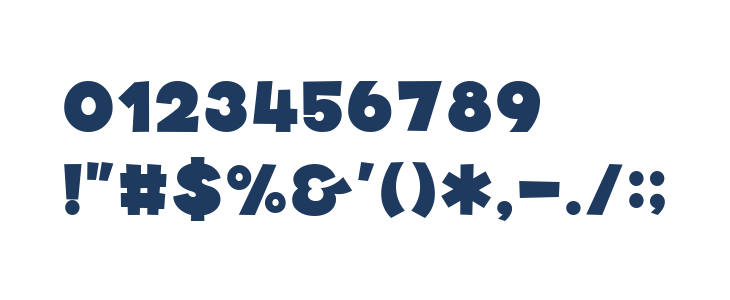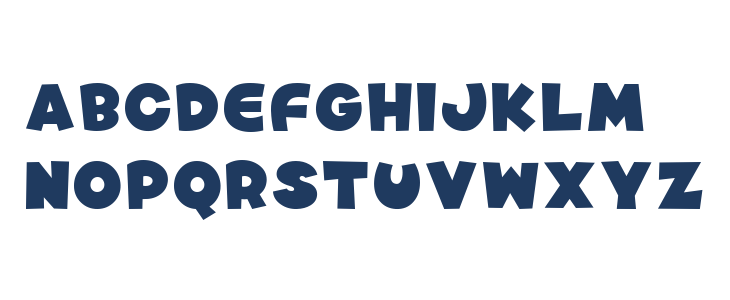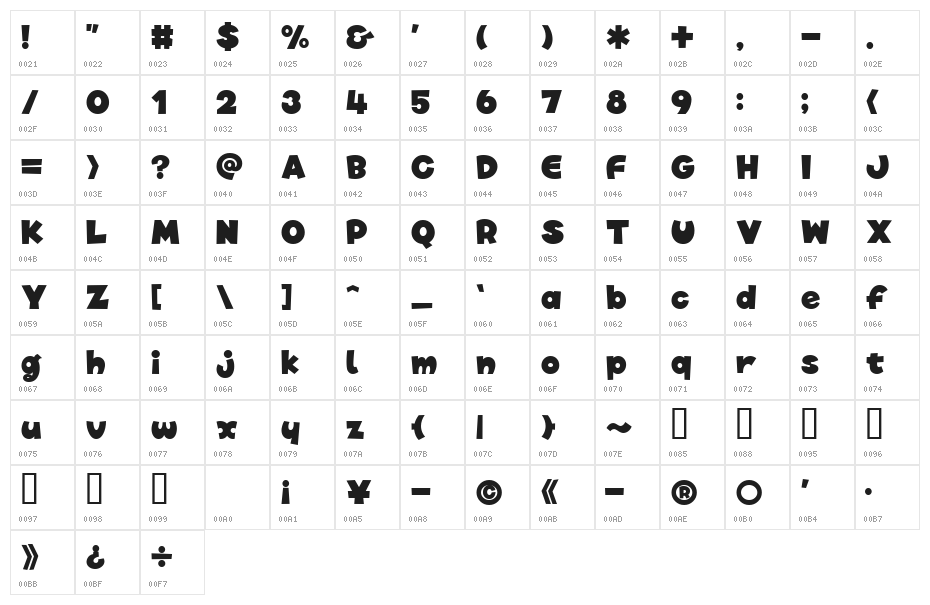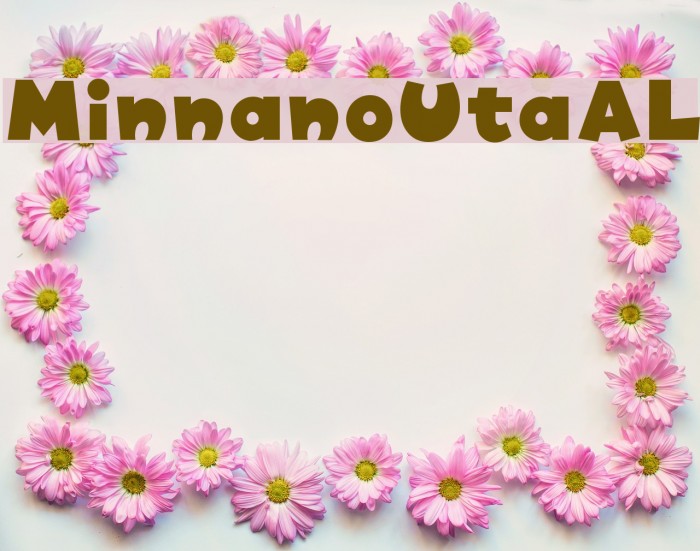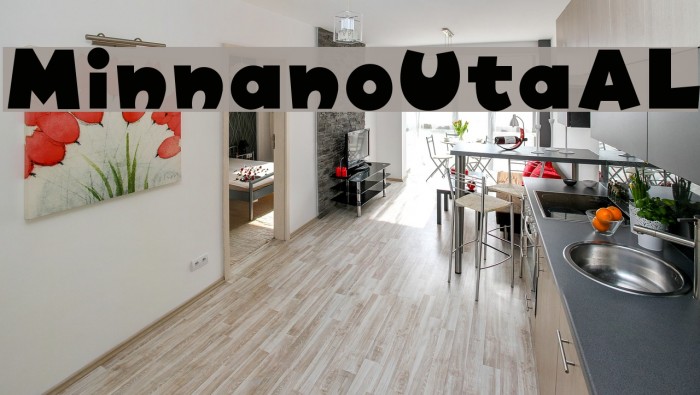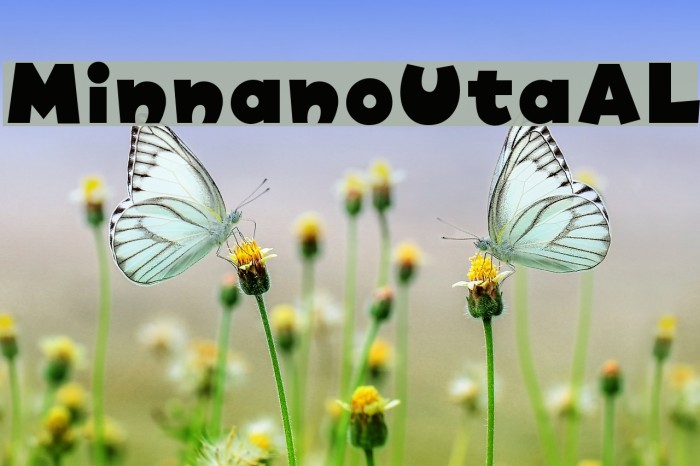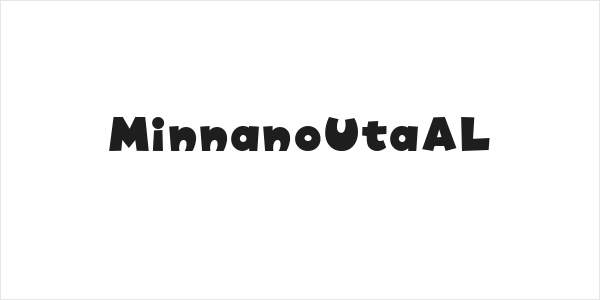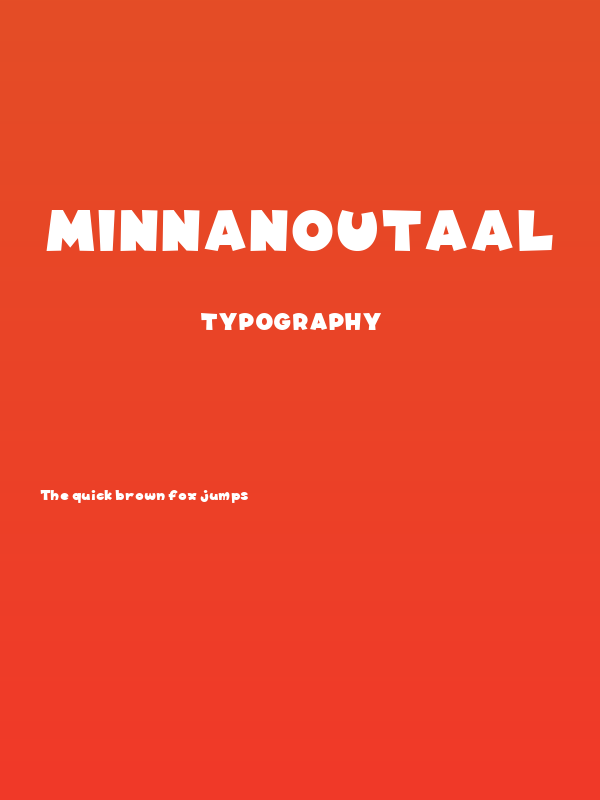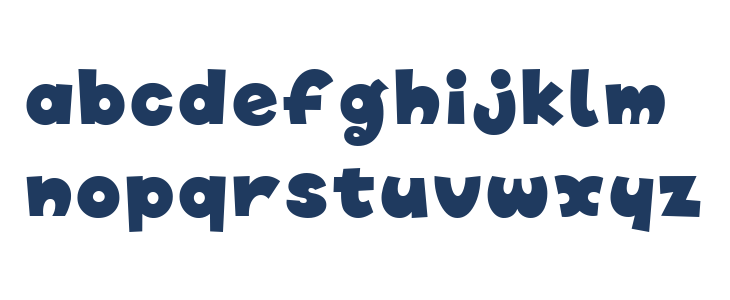
MinnanoUtaAL Font
MinnanoUtaAL Description
This playful and bold font features thick, rounded characters that exude a sense of fun and whimsy. The letters are uniformly bold, with a slightly condensed appearance that gives them a compact and robust look. The font's rounded edges and smooth curves contribute to its friendly and approachable style, making it ideal for projects that require a touch of lightheartedness. The numbers and special characters maintain the same bold and rounded characteristics, ensuring consistency across all glyphs. This font's unique style is perfect for capturing attention and conveying a sense of joy and creativity.
Overall StylePlayful, Whimsical
Proposed ProjectsIdeal for children's books, playful branding, party invitations, and creative posters.